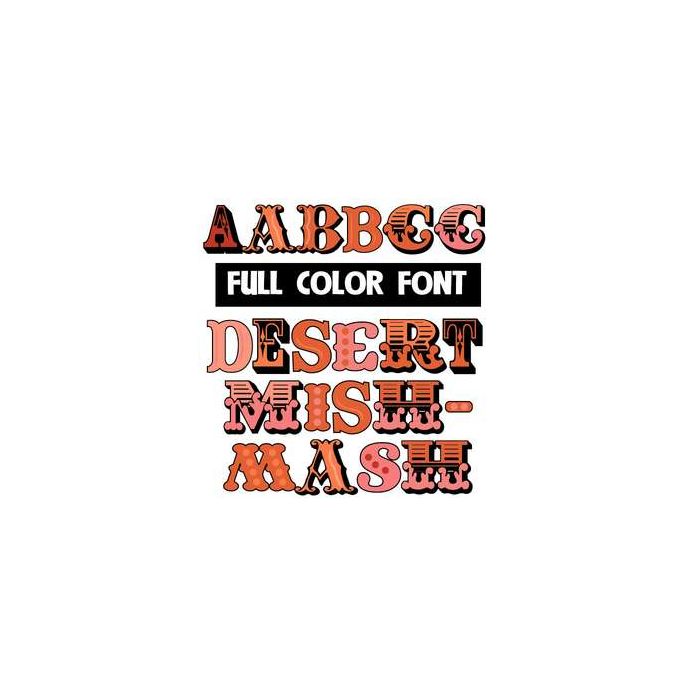
This full-color font features desert-colors in a hodgepodge of letter styles. Mix up both cases as you type for best results. This font works best for titles, displays, posters and more. Please note color fonts will show as black in non compatible programs. This font type is compatible with Silhouette Studio.